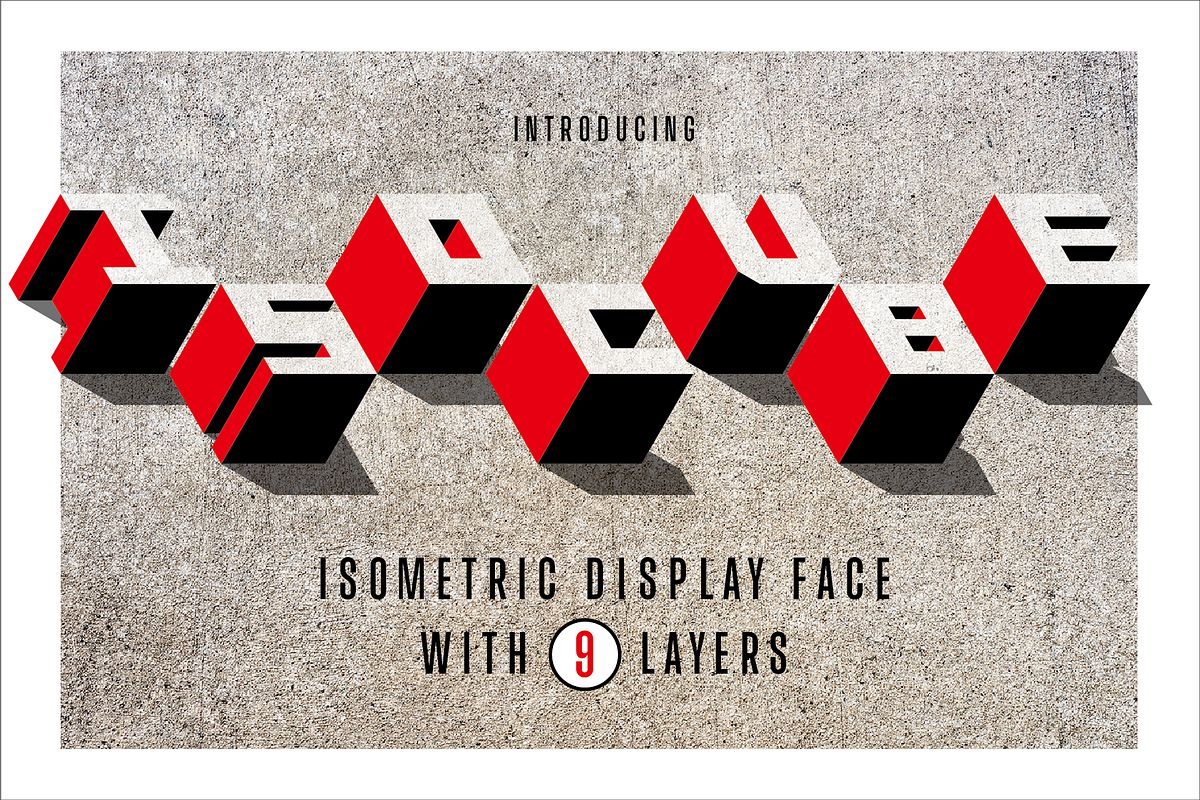
The Isocube – Layered Isometric Font Free Download is a bold and futuristic typeface that adds depth, dimension, and a unique 3D effect to your designs. Built with an isometric grid style, this layered font is perfect for tech-related projects, game titles, sci-fi posters, digital artwork, and anything that needs a modern, edgy visual impact.
With multiple layer options, including base, shadow, and highlight styles, Isocube allows you to create dynamic compositions with a sense of realism and volume. It’s easy to customize and works great in both print and digital environments. The font also includes uppercase letters, numbers, punctuation, and multilingual support.